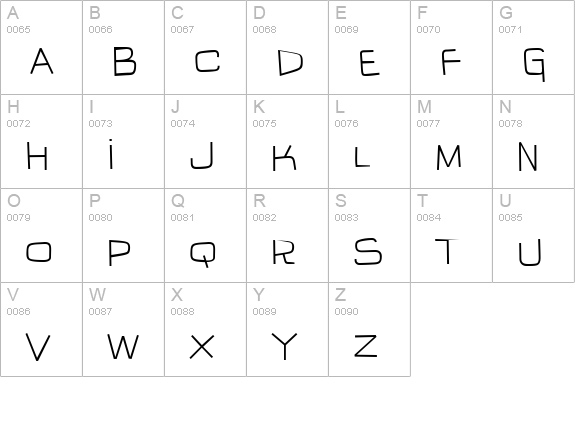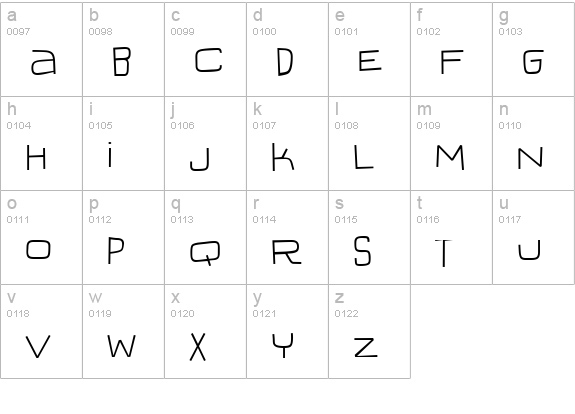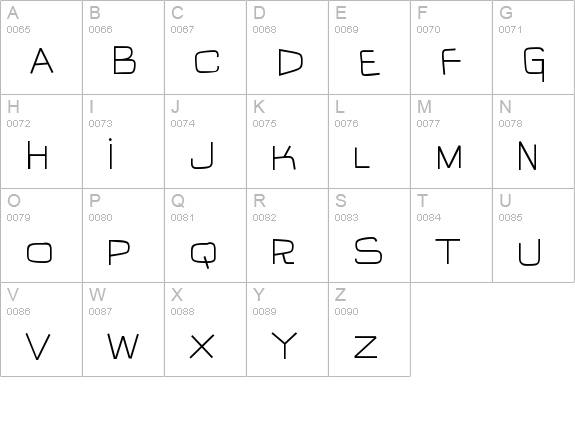
IguanaLover BTN Lt font is a stunning and versatile typeface that will captivate any designer or typographer. With its elegant and graceful curves, this font exudes a sense of sophistication and modernity that is perfect for a wide range of projects. The IguanaLover BTN Lt font is meticulously crafted, ensuring that each character is beautifully balanced and harmonious. Its clean lines and precise detailing make it incredibly legible, even at smaller sizes, making it a fantastic choice for both print and digital designs. One of the standout features of IguanaLover BTN Lt font is its versatility. Whether you're working on a logo, website, or any other creative project, this font can effortlessly adapt to any style or theme. Its flexibility allows you to experiment and explore different design possibilities, ensuring that your work stands out from the crowd. But what makes IguanaLover BTN Lt font even more appealing is that it is free. Yes, you read that right! This extraordinary font is freely available to download at FontsMarket.com. You can enhance your designs without spending a dime, making it a valuable asset for both professional designers and enthusiasts alike. So why wait? Download the IguanaLover BTN Lt font today and experience the magic it brings to your creative endeavors. With its exquisite design, versatility, and the fact that it is freely accessible, this font is truly a must-have for every designer's toolkit.